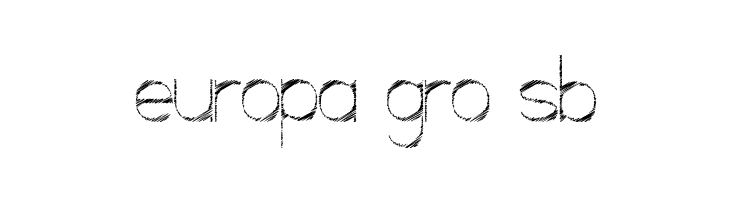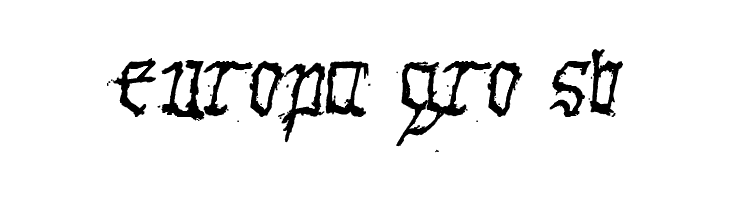
A geometric, blocky font with uniform line thickness and a digital aesthetic.
A textured, hand-drawn style font with bold, condensed characters.
A bold, scribbled font with a textured, hand-drawn appearance.
A sketch-like, italic font with a hand-drawn, artistic style.
Invalid font image composed of QR codes.
A bold, gritty font with a distressed, urban street art style.
A bold, distressed font with an edgy, torn tape appearance.
A bold, geometric font with sharp angles and a blocky, stencil-like appearance.
A Gothic-style font with a rough, distressed appearance and dynamic contrast.
A bold, distressed Gothic font with a hand-drawn, medieval appearance.
A distressed, grunge font with a torn, edgy appearance.
A distressed serif font with a grunge, textured style.
A bold, sliced, and dynamic font with high visual impact.
A bold, eclectic display font with diverse, dynamic letterforms and a rebellious aesthetic.
A rugged, distressed font with bold, irregular edges for a raw visual impact.
A bold, distressed font with a rugged, hand-crafted appearance.
A bold, distressed font with irregular, hand-crafted edges.
A bold, distressed font with a rugged, hand-crafted appearance.
A bold, playful font with irregular, hand-drawn shapes and a unique, artistic flair.
A bold, playful font with irregular, organic shapes and a hand-cut appearance.
A playful, bubbly font with characters formed by interconnected dots, ideal for creative projects.
A playful, bubble-inspired font with interconnected dots creating a whimsical look.
A playful, bubble-like font with rounded, interconnected shapes.
A bold, geometric font with angular shapes and a strong, industrial aesthetic.
A bold, geometric font with a striped, industrial design.
A bold, geometric font with sharp angles and a modern aesthetic.
A bold, geometric font with a pixelated, retro digital style.
A bold, geometric font with a modern and impactful design.
A bold, pixelated font with a retro, digital aesthetic.
A modern, tech-inspired font using smartphone imagery for a futuristic look.
A bold, hand-drawn comic style font with a playful and whimsical appearance.
A playful, hand-drawn font with a whimsical, shaky appearance.
A sleek, modern italic font with a futuristic design and continuous line style.